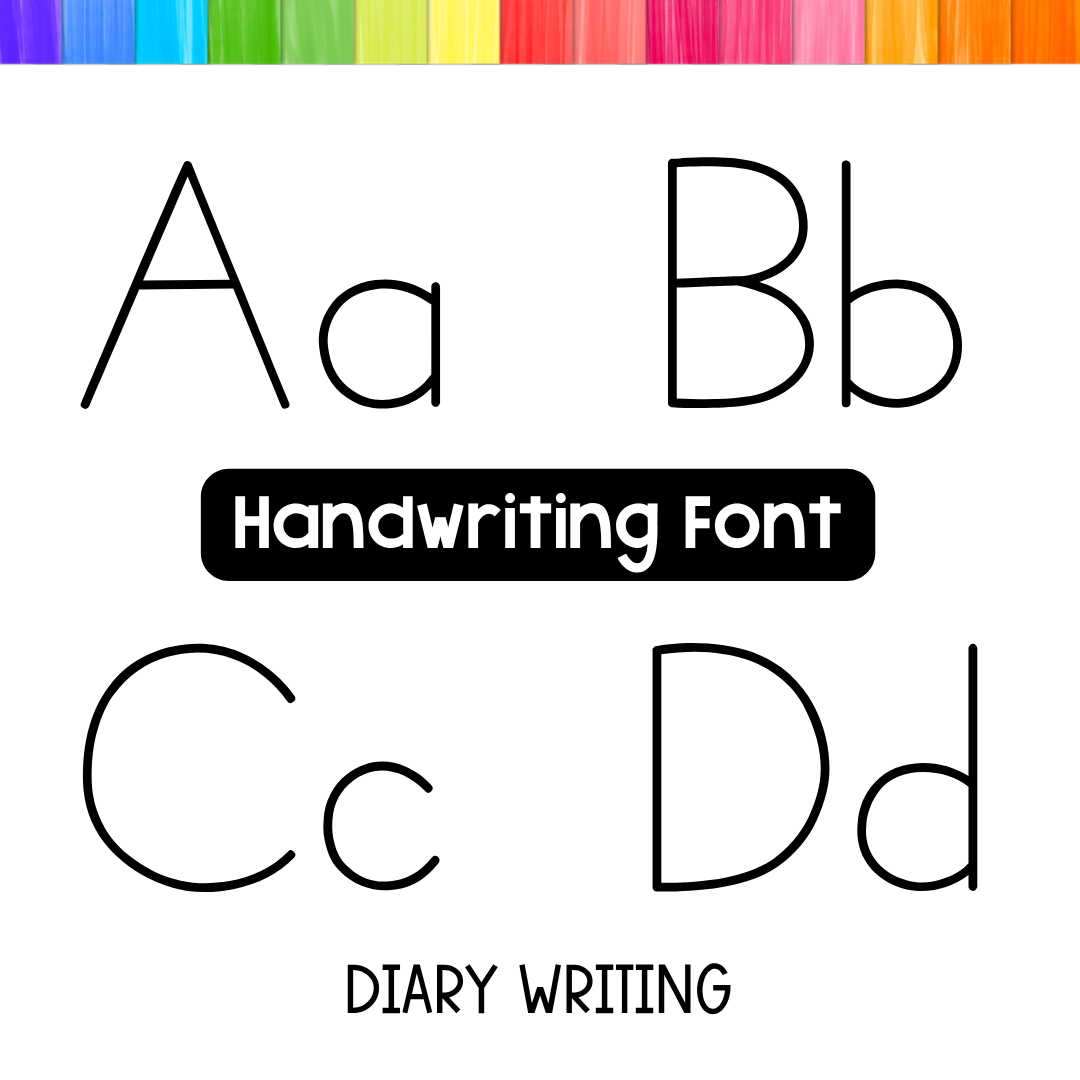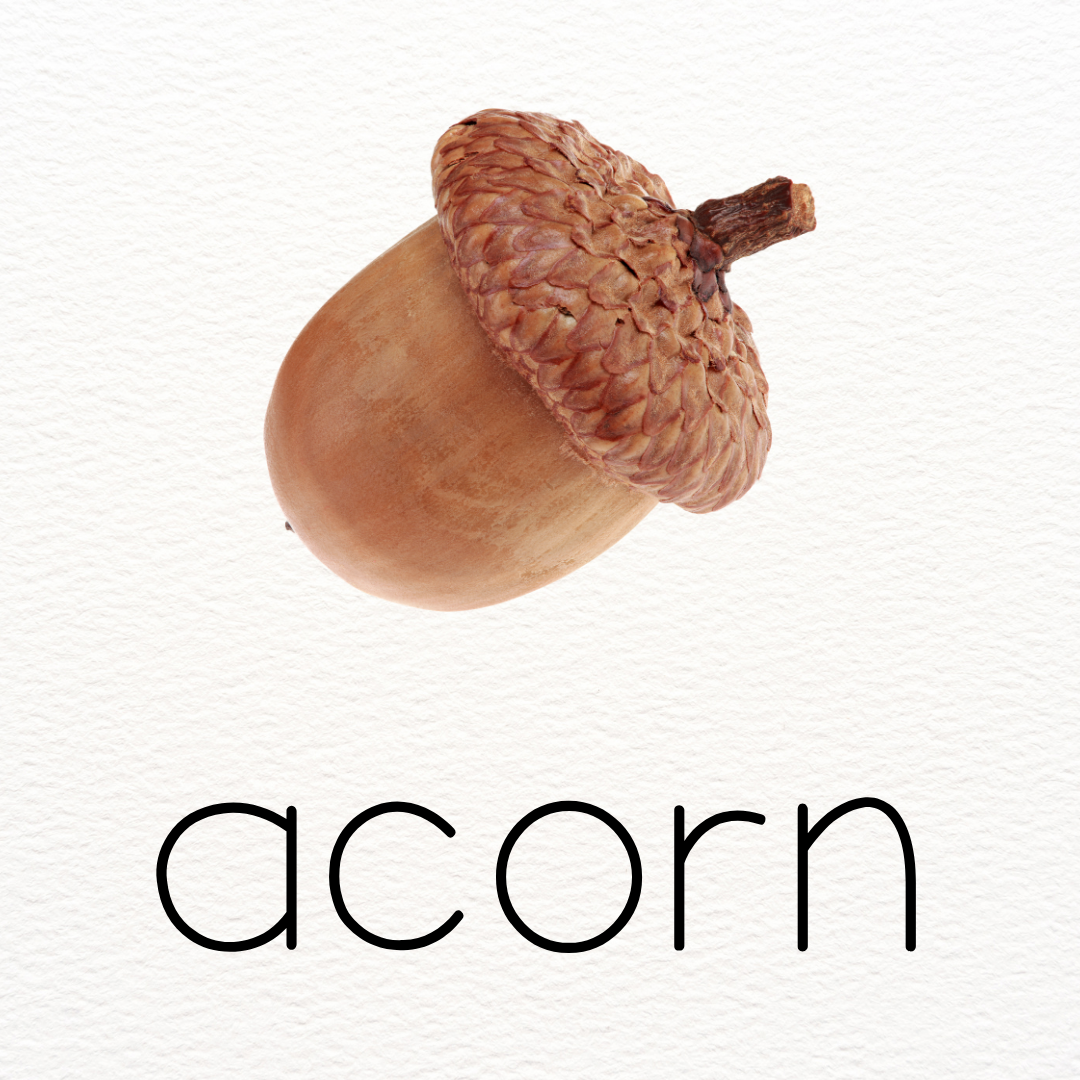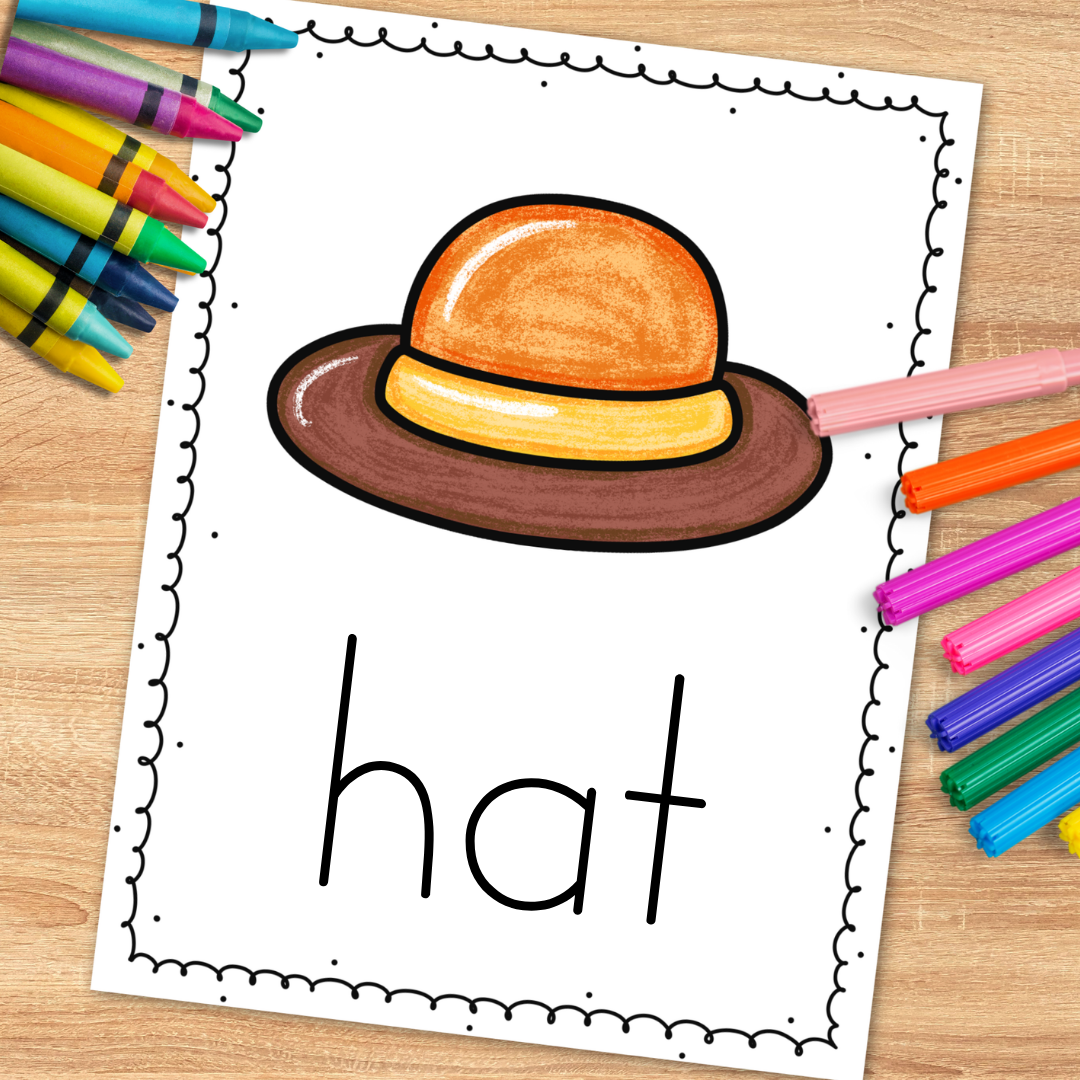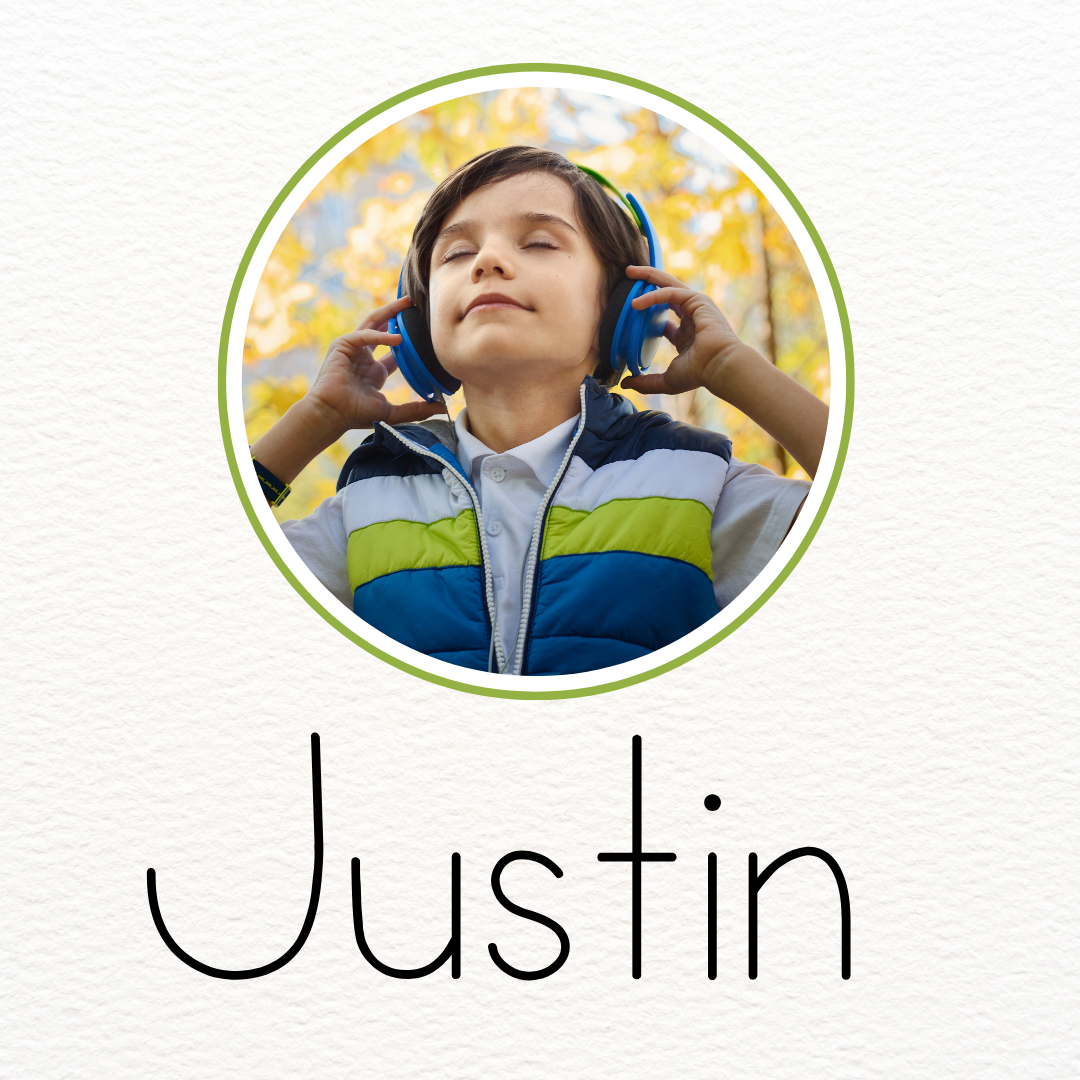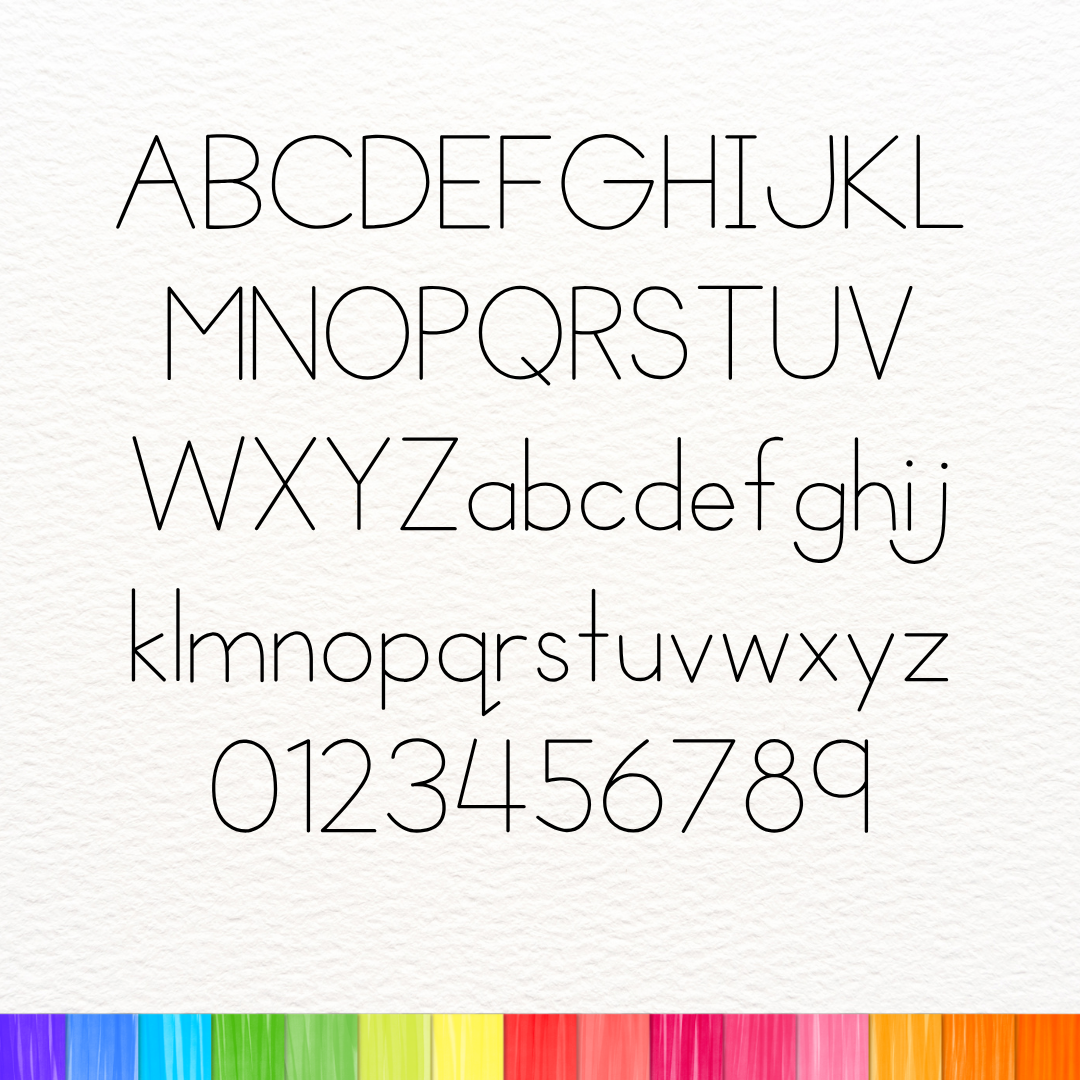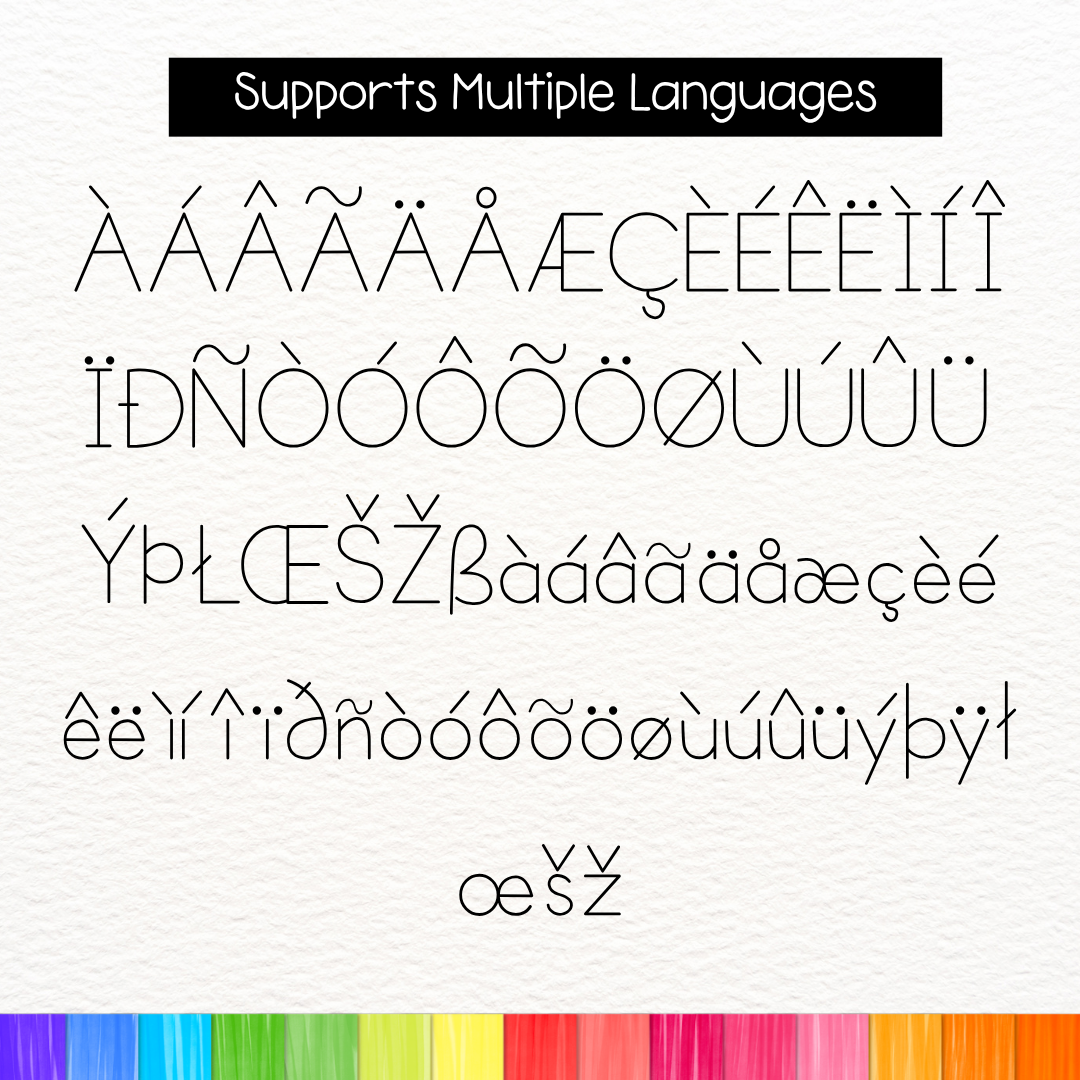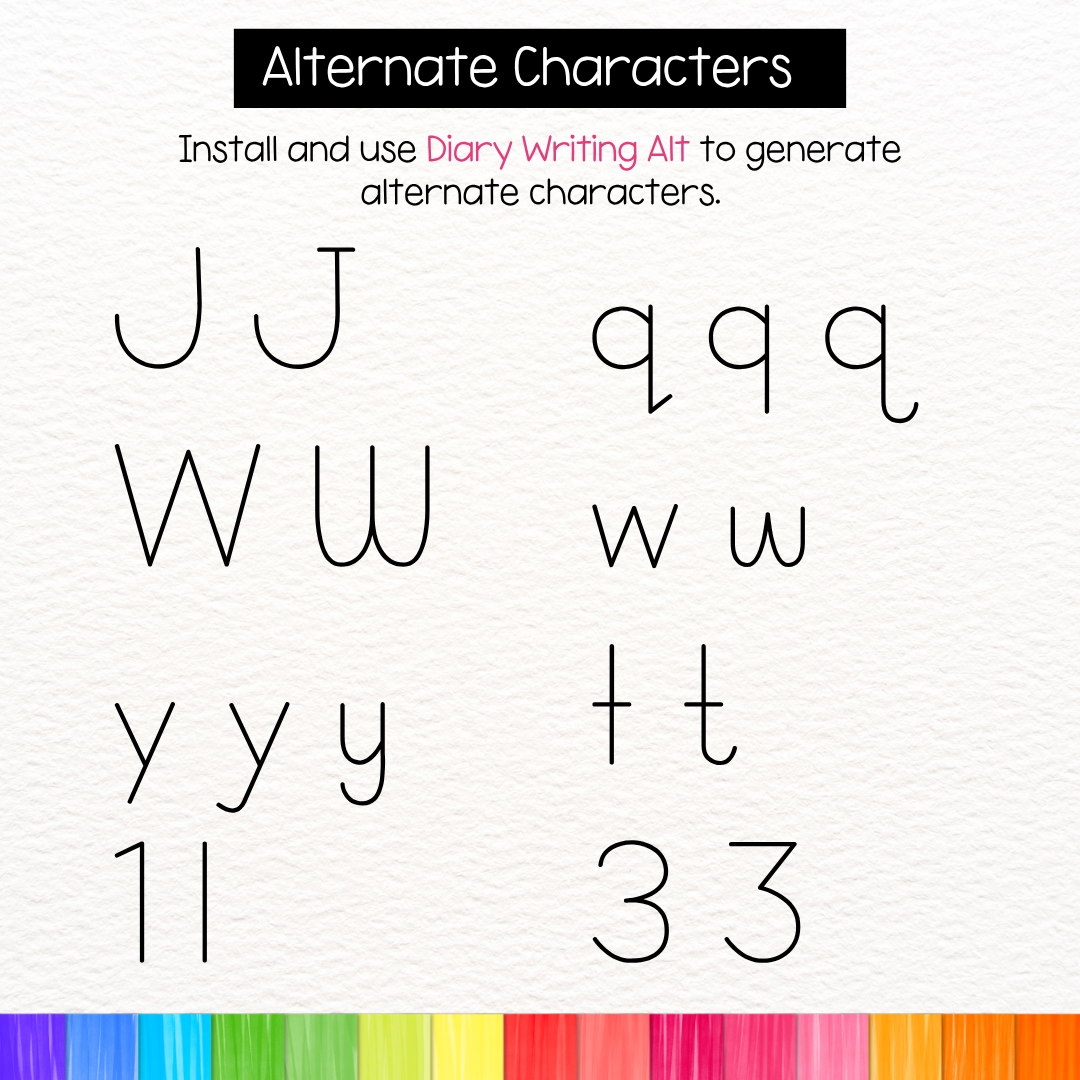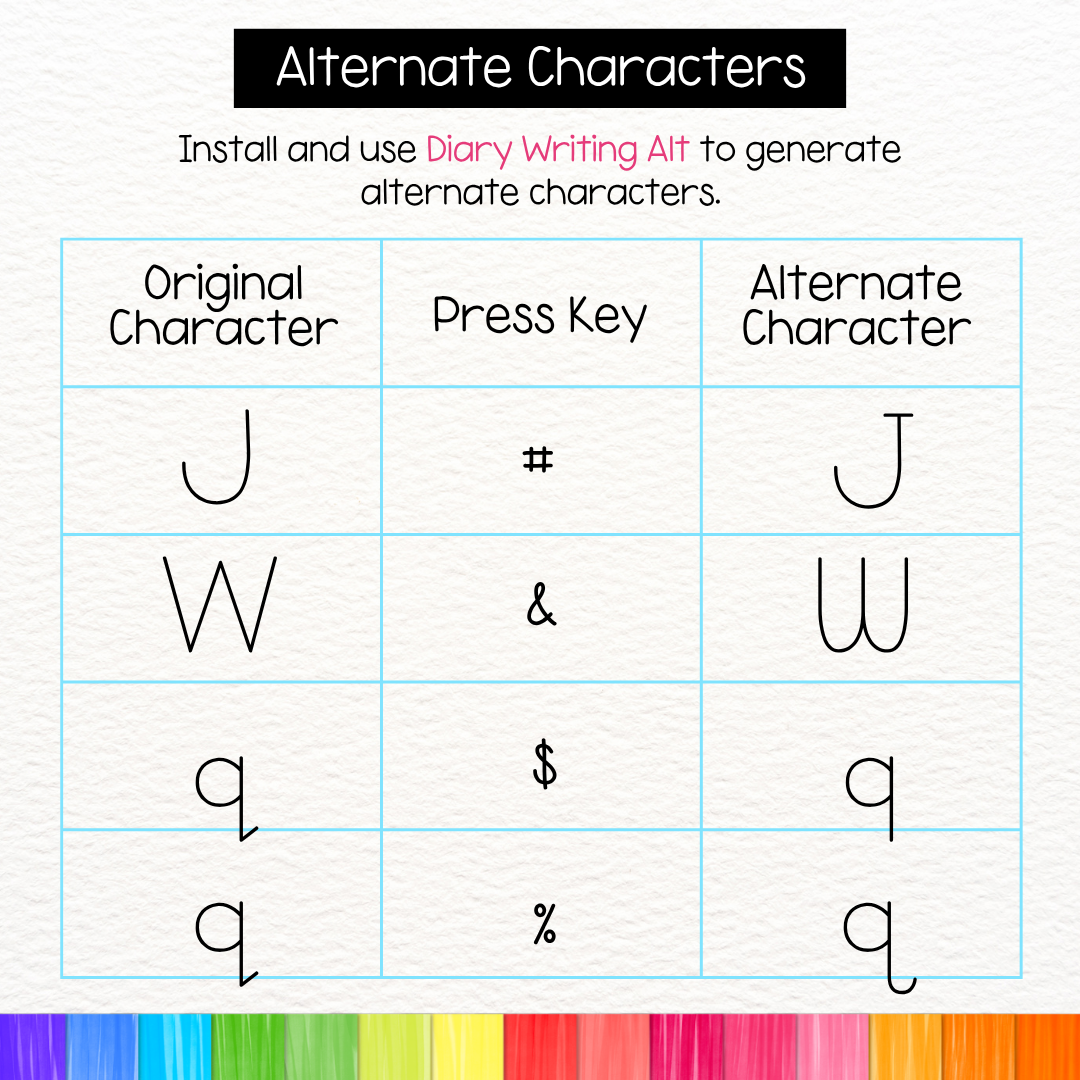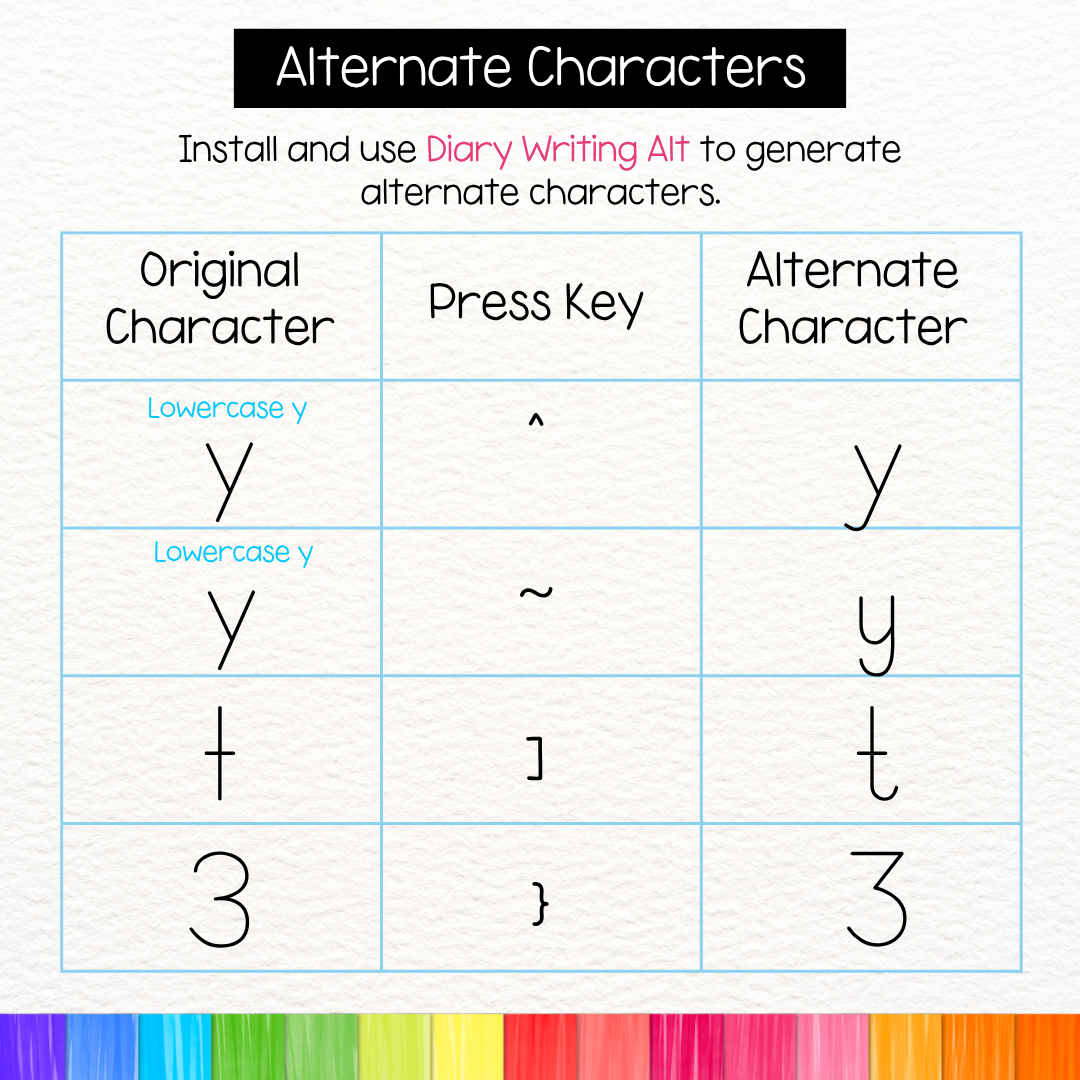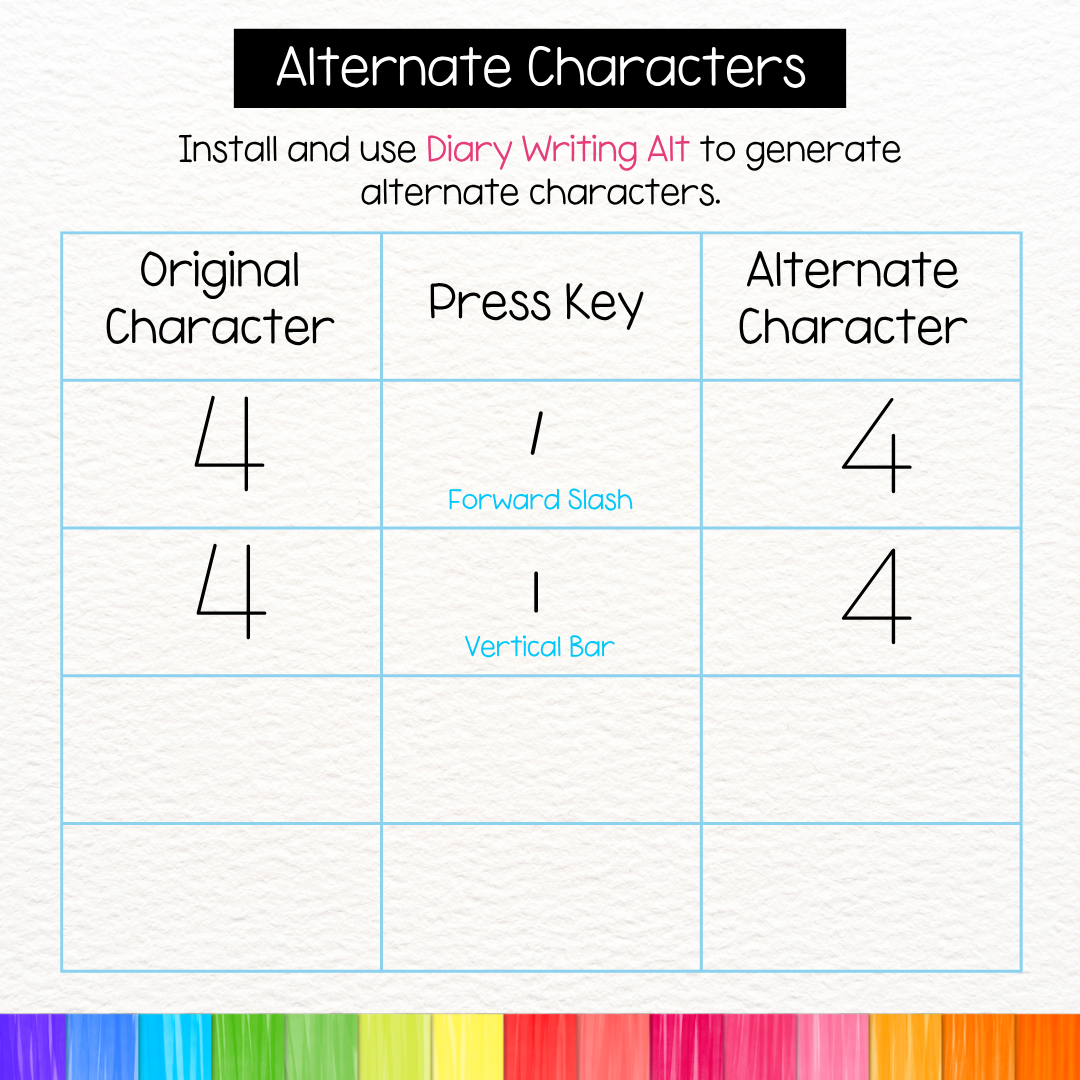
Print ABC Alphabet Font for Handwriting Practice
Tracing Font – Diary Writing – Commercial Use
This print handwriting font can be used in your tracing and handwriting activities. This font includes all capital letters, lowercase letters, and numbers, making it ideal for toddler tracing, name tracing, letter recognition, and number tracing exercises, as well as worksheets. It also supports multiple languages. (PLEASE SEE PREVIEW TO SEE LETTER FORMS)
Create fun and engaging activities for kids to trace letters with these goodies!